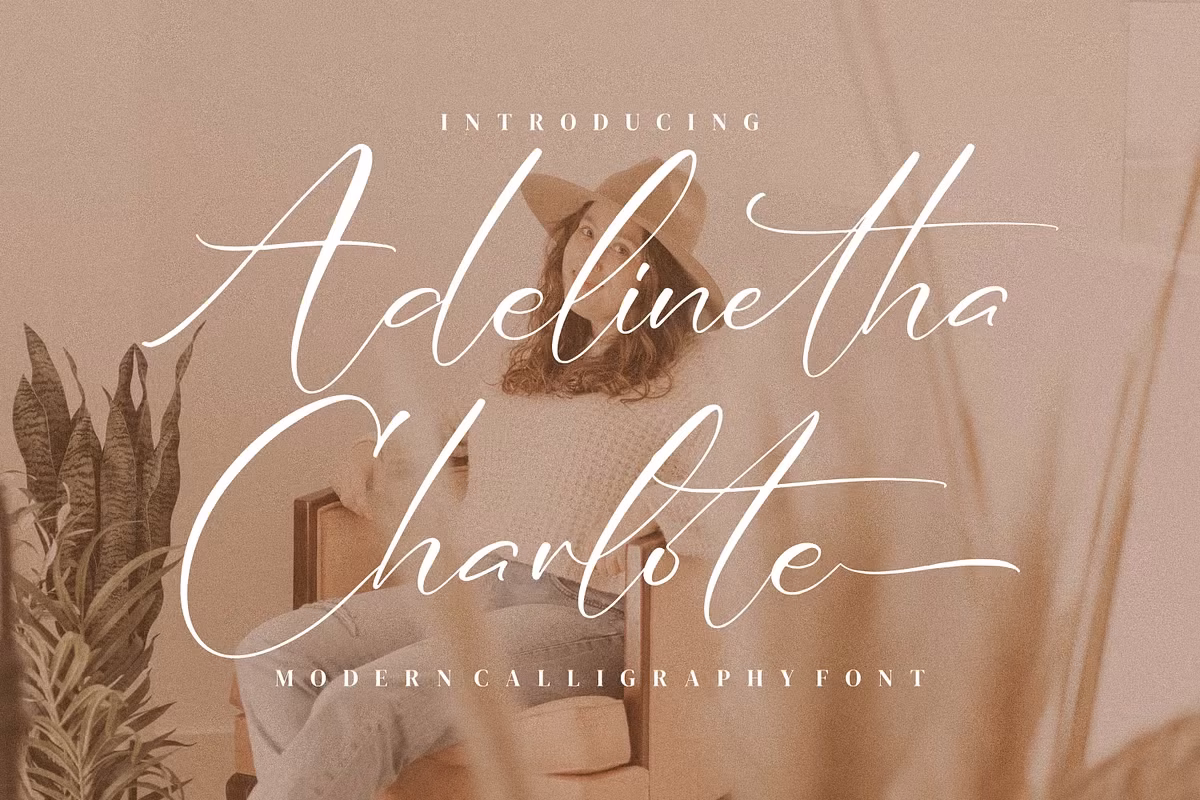
Adelinetha Charlote Font Free Download is a romantic and graceful script typeface, designed to bring elegance and sophistication to your creative projects. With its flowing strokes, stylish swashes, and delicate letterforms, this font is perfect for wedding invitations, feminine branding, elegant stationery, beauty products, and heartfelt quotes.
It combines a modern calligraphy feel with timeless charm, offering both readability and decorative appeal. Whether you're designing for a special event or building a chic brand identity, Adelinetha Charlote adds a touch of luxury and warmth to every word.
Let your designs bloom with the stylish elegance of Adelinetha Charlote.